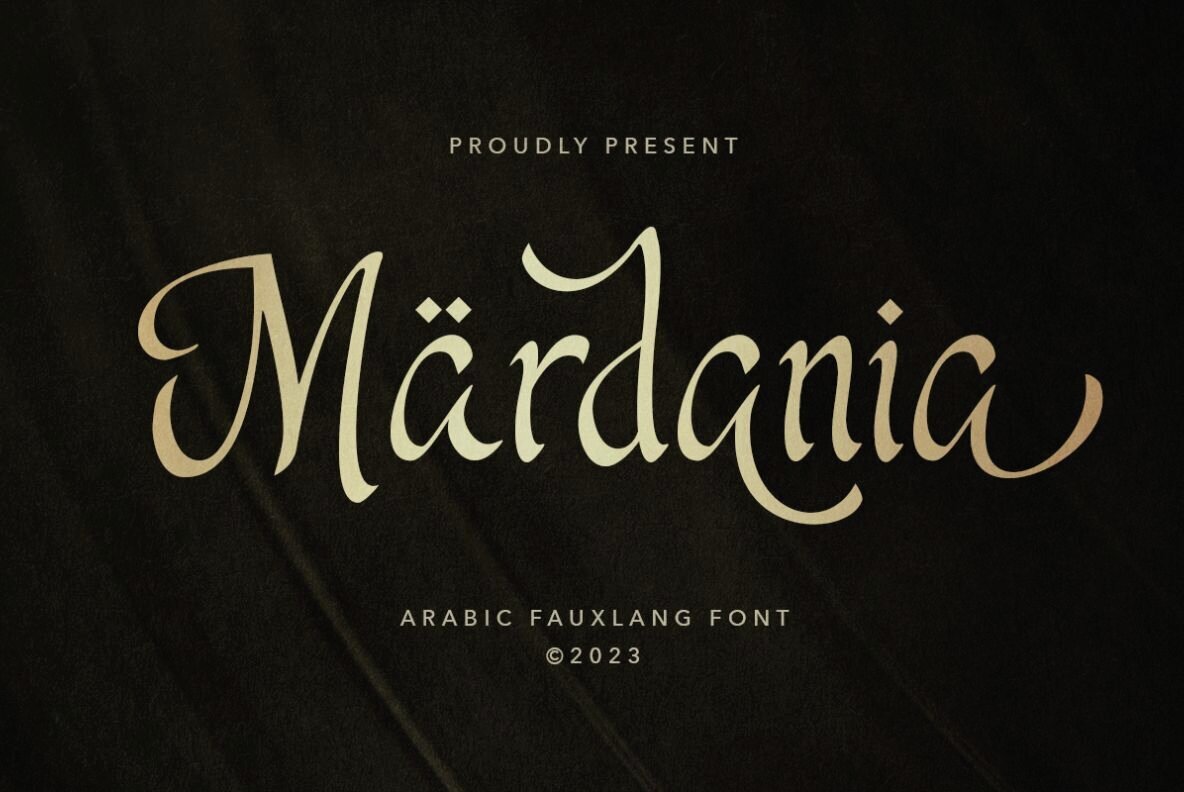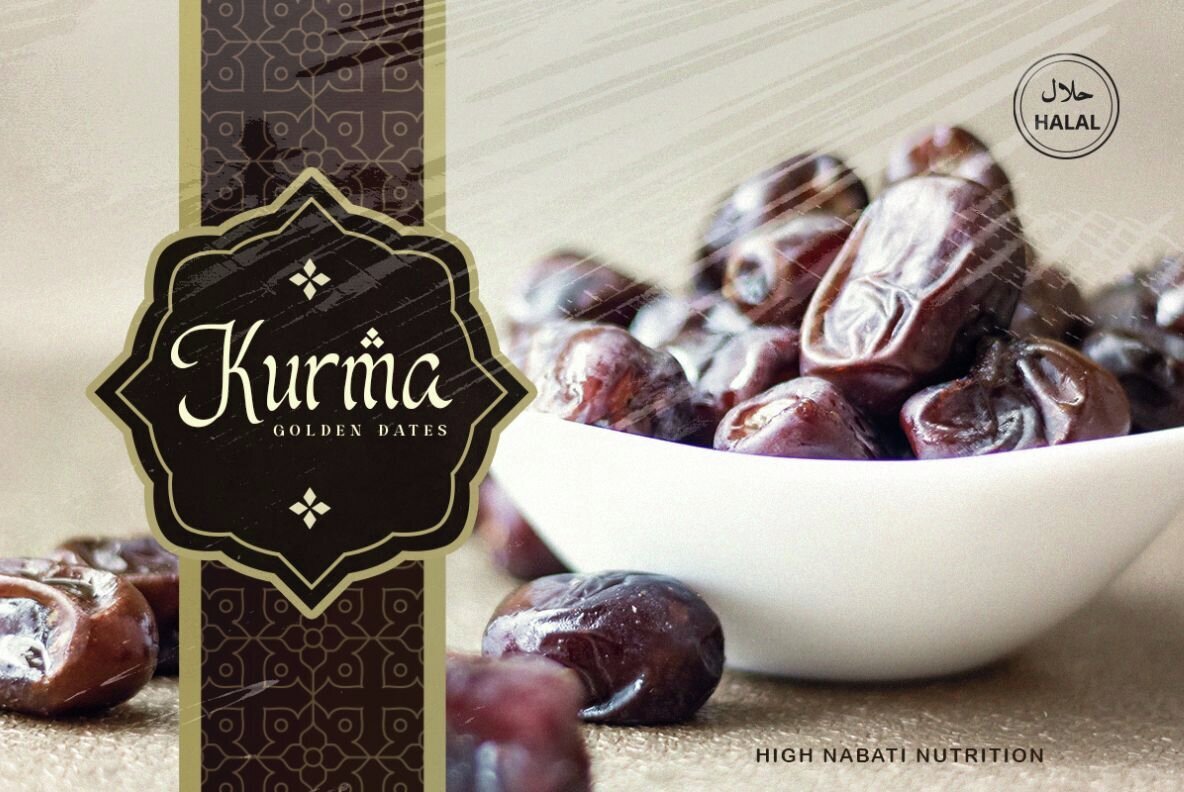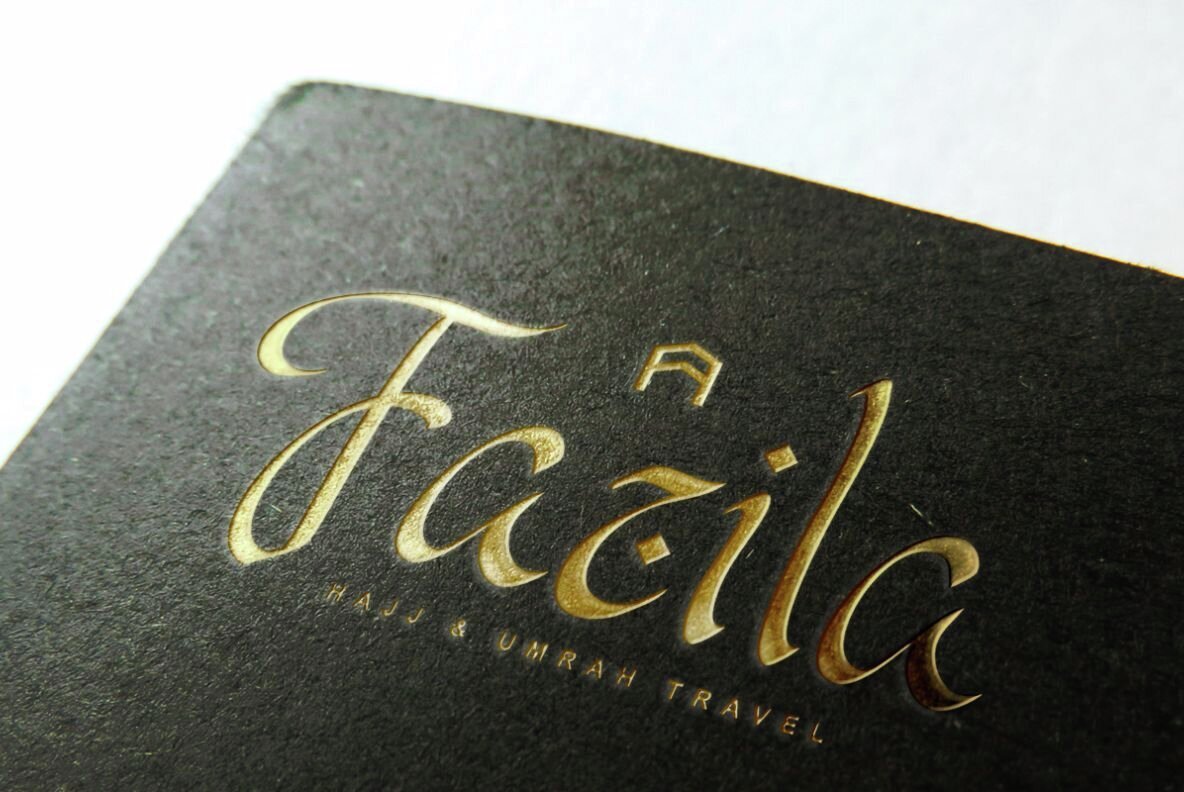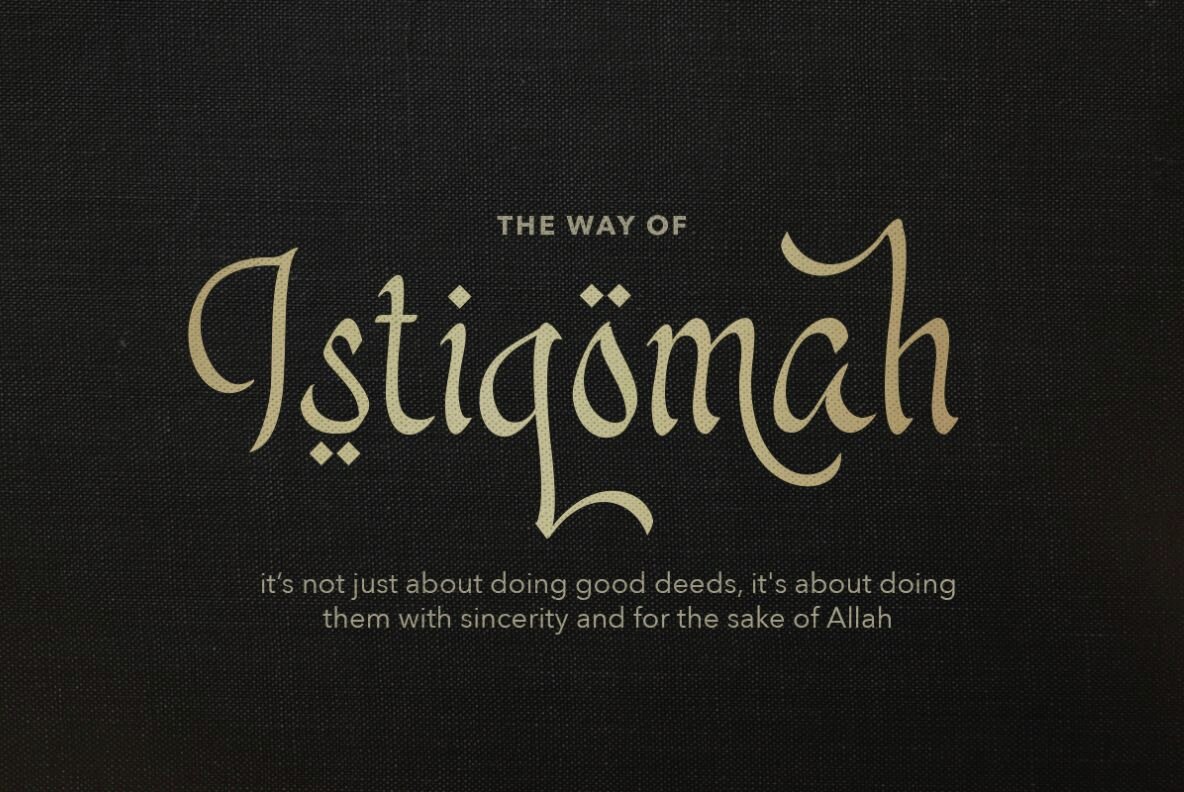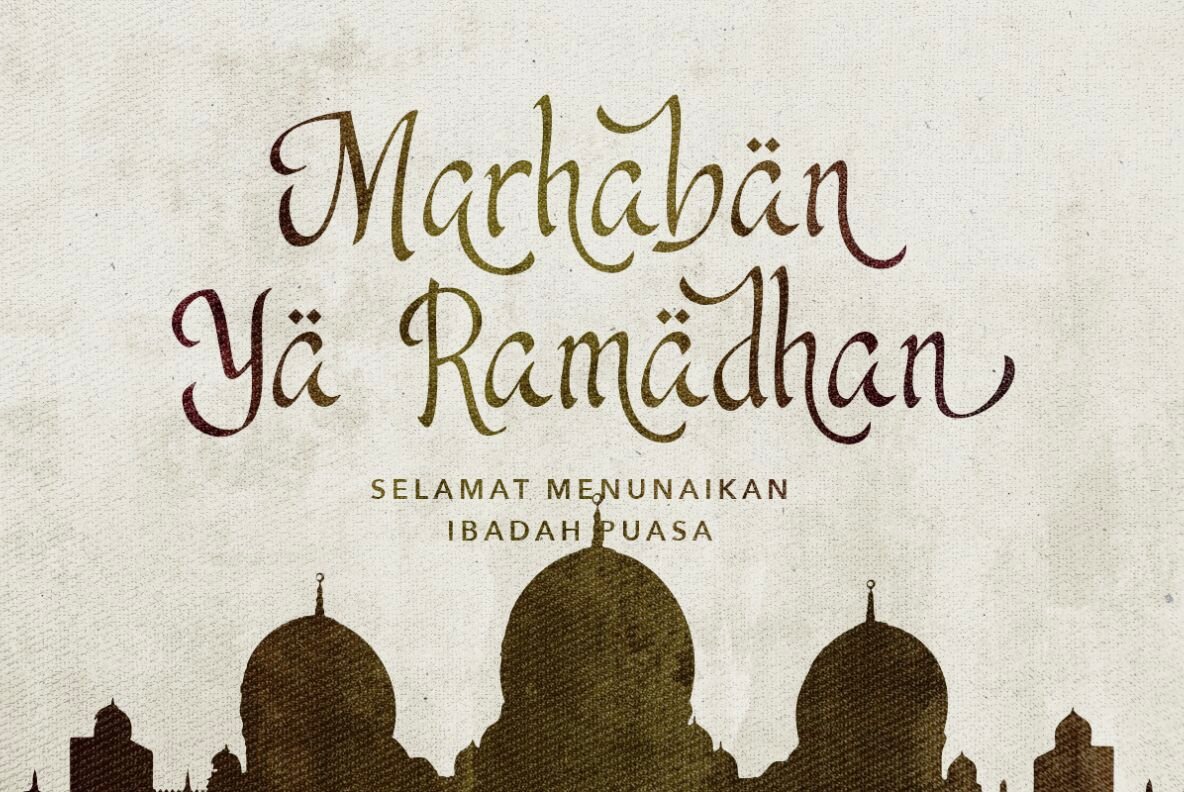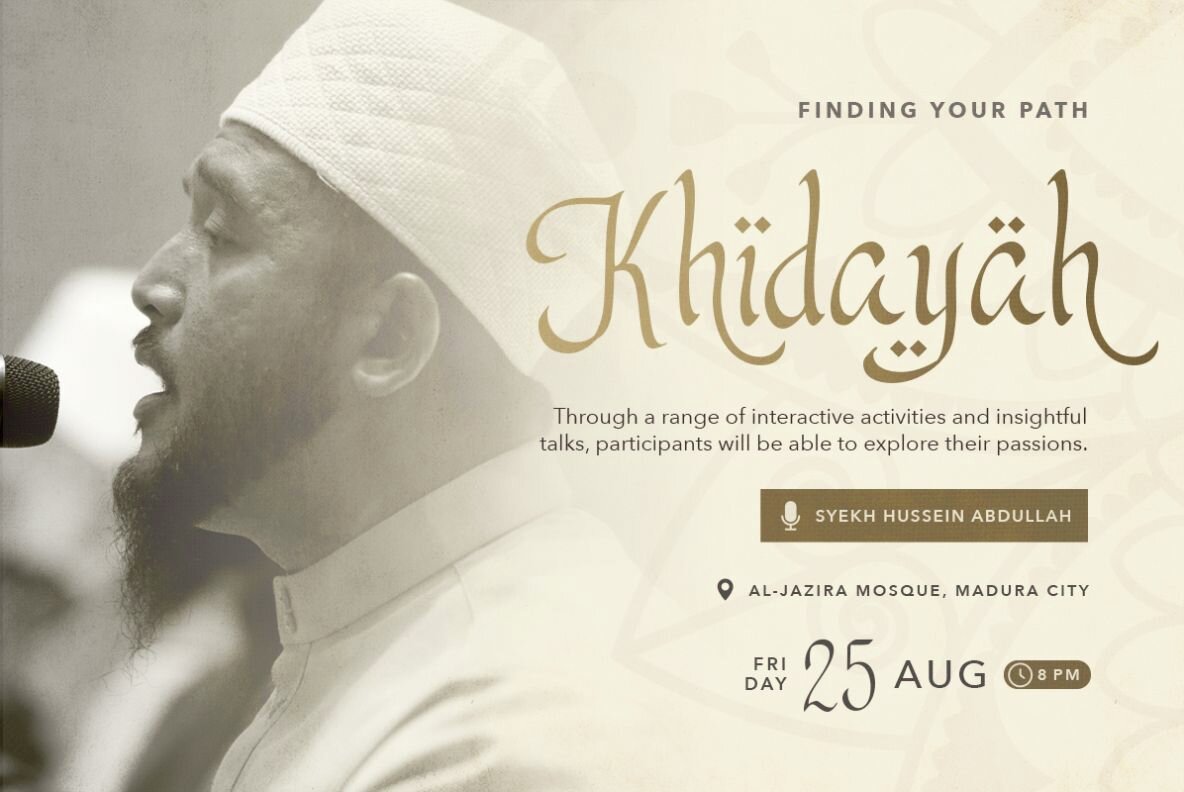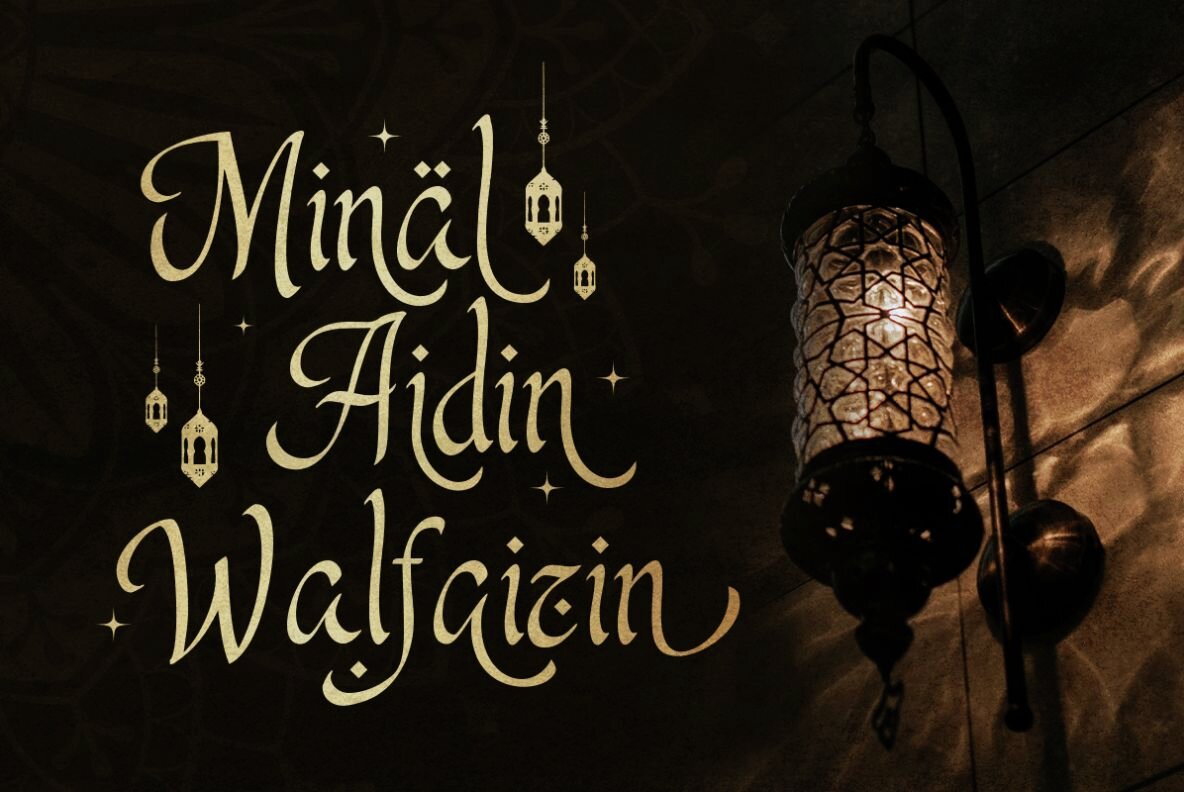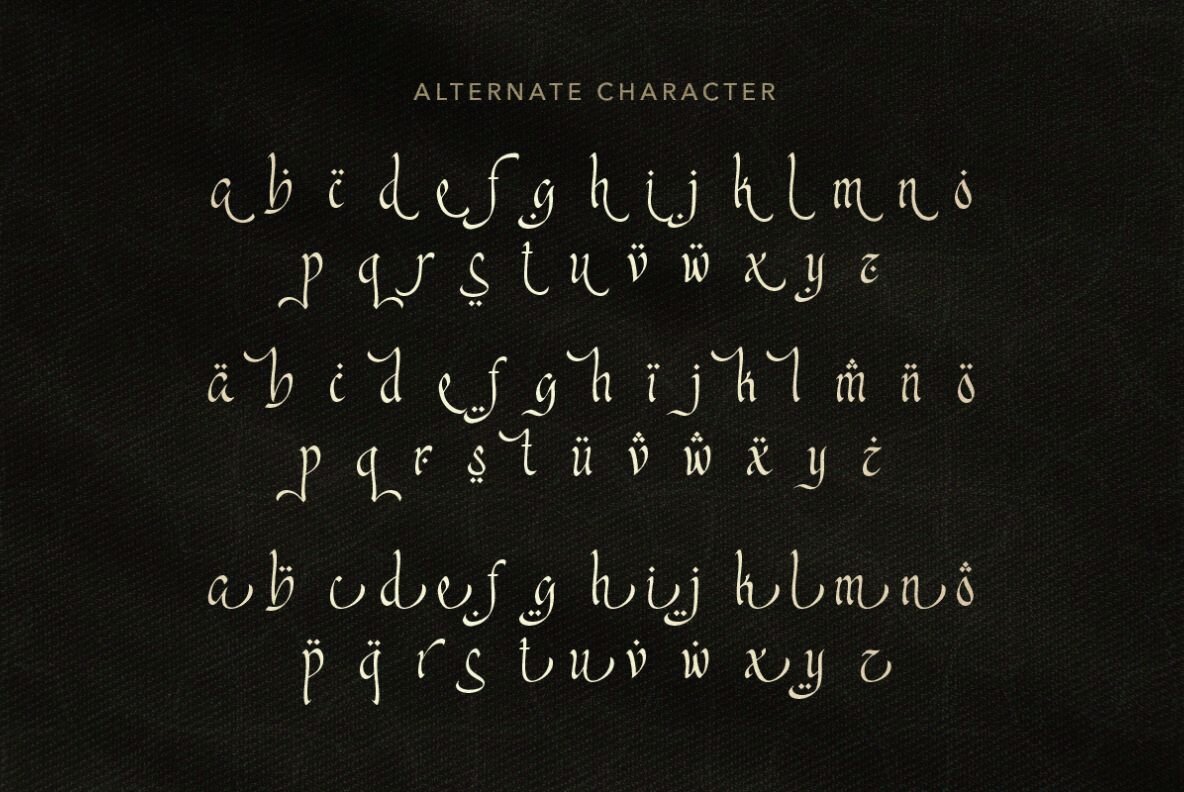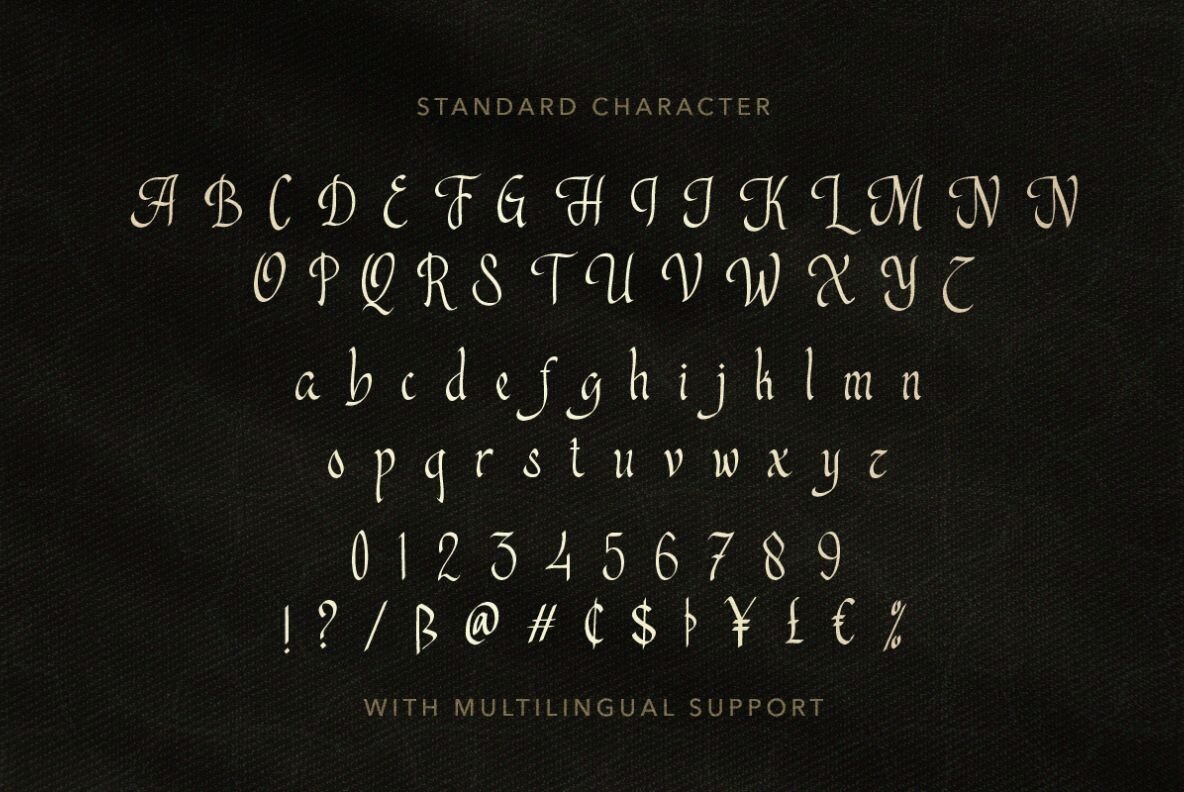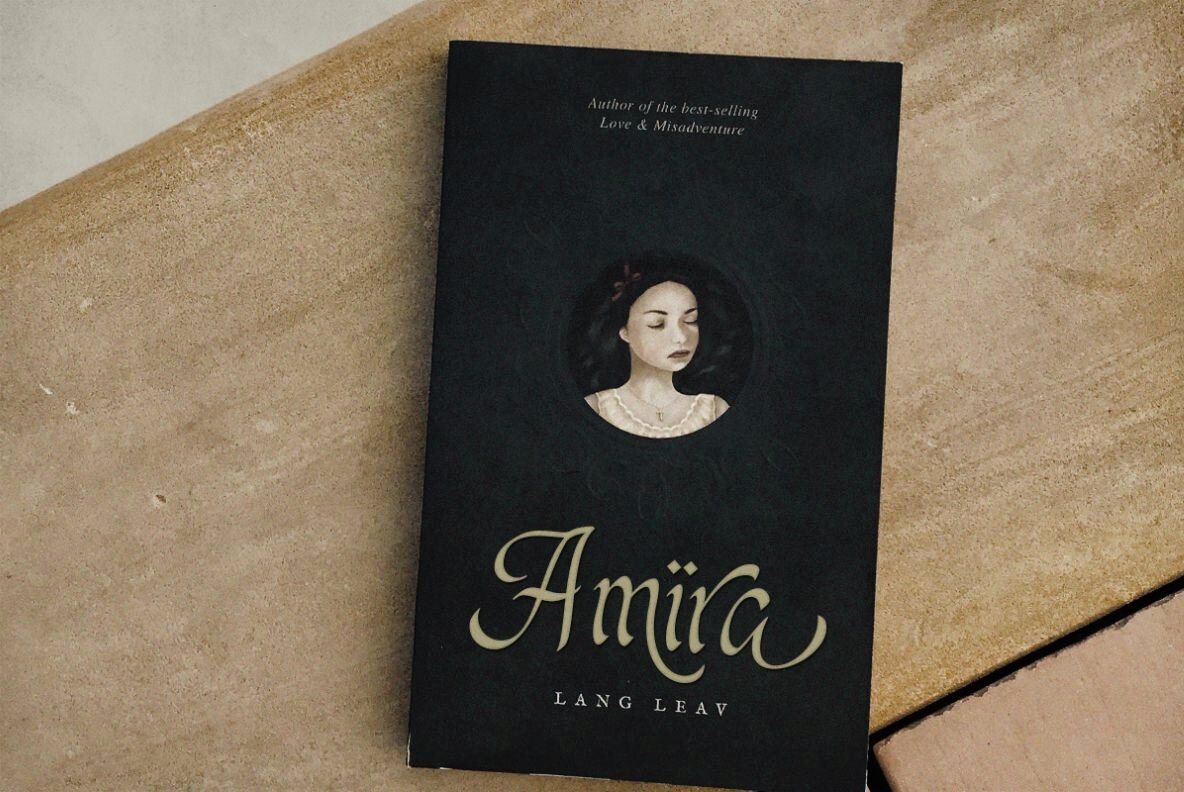
Mardania Font
Mardania Regular
Mardania is a stylish faux Arabic font designed to infuse your projects with an Arabian flair while maintaining readability. Influenced by the elegant forms of the Arabic script, it offers stylish alternates that can enhance the visual appeal of your designs. Perfect for branding, logo creation, wedding invitations, and events such as Ramadan and other Islamic holidays, Mardania bridges cultural aesthetics with versatile functionality.
This font comes equipped with numbers, symbols, and multilingual support, ensuring it can be adapted to various languages and design needs. Its unique design makes it an ideal choice for projects related to Islamic content or those seeking a touch of Middle Eastern style. Whether you're working on a special occasion piece or developing brand elements, Mardania provides an artistic yet accessible typeface option.